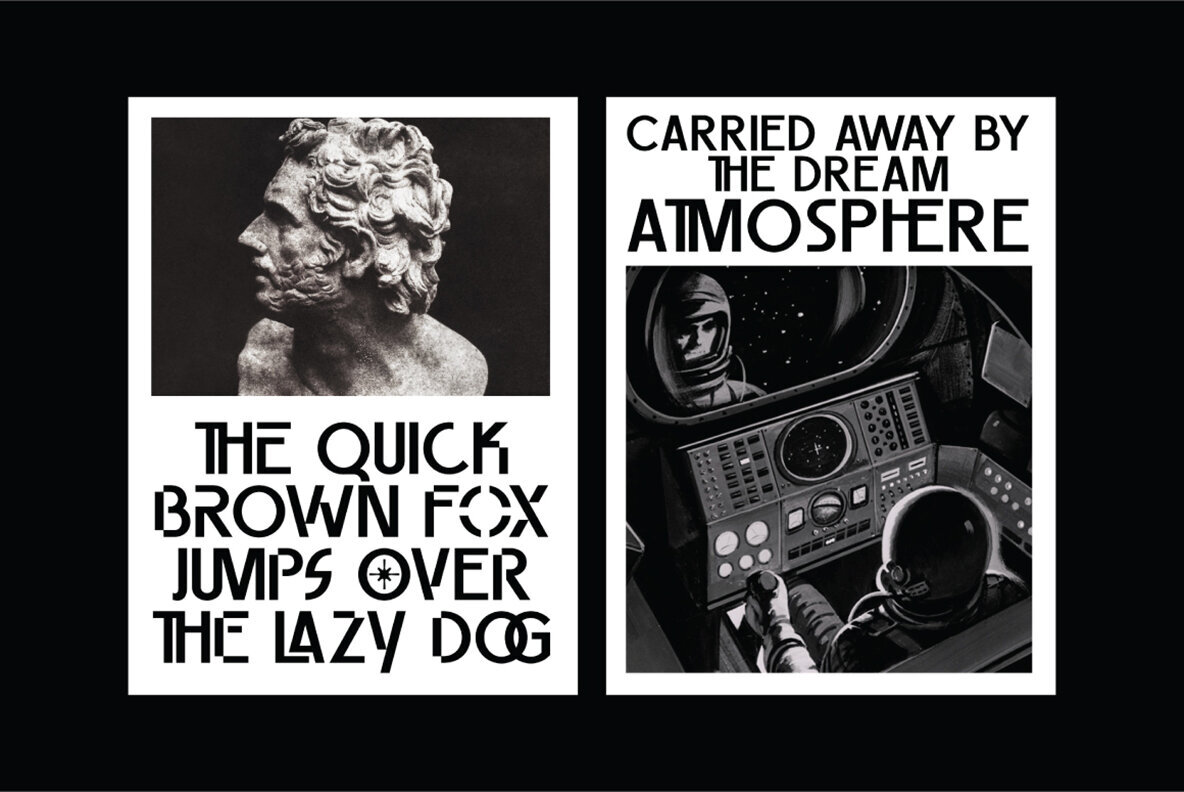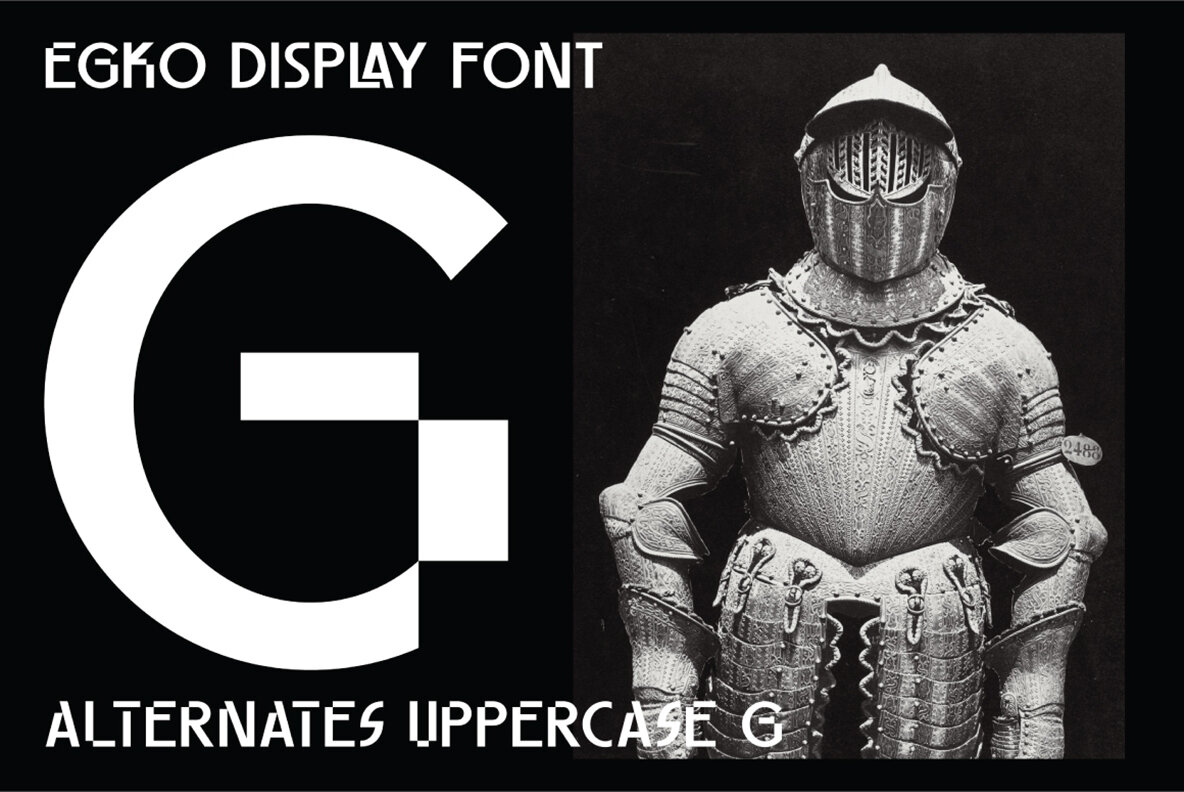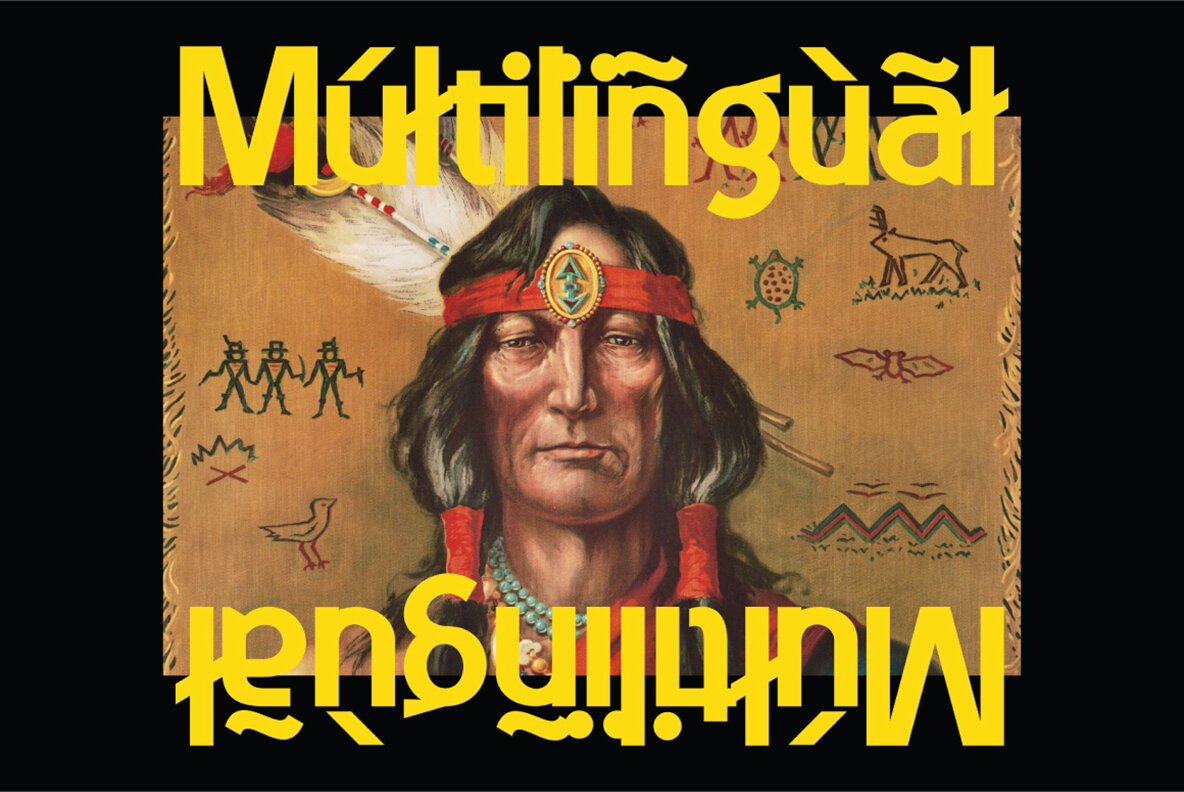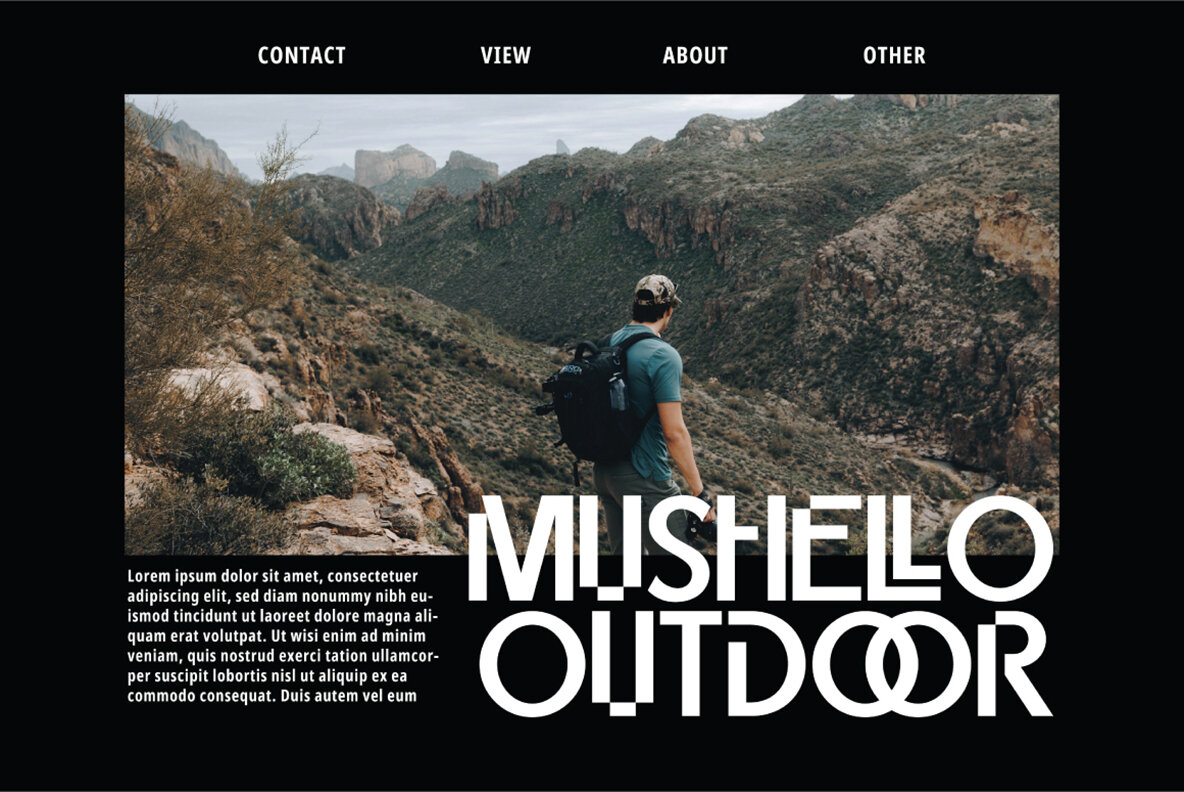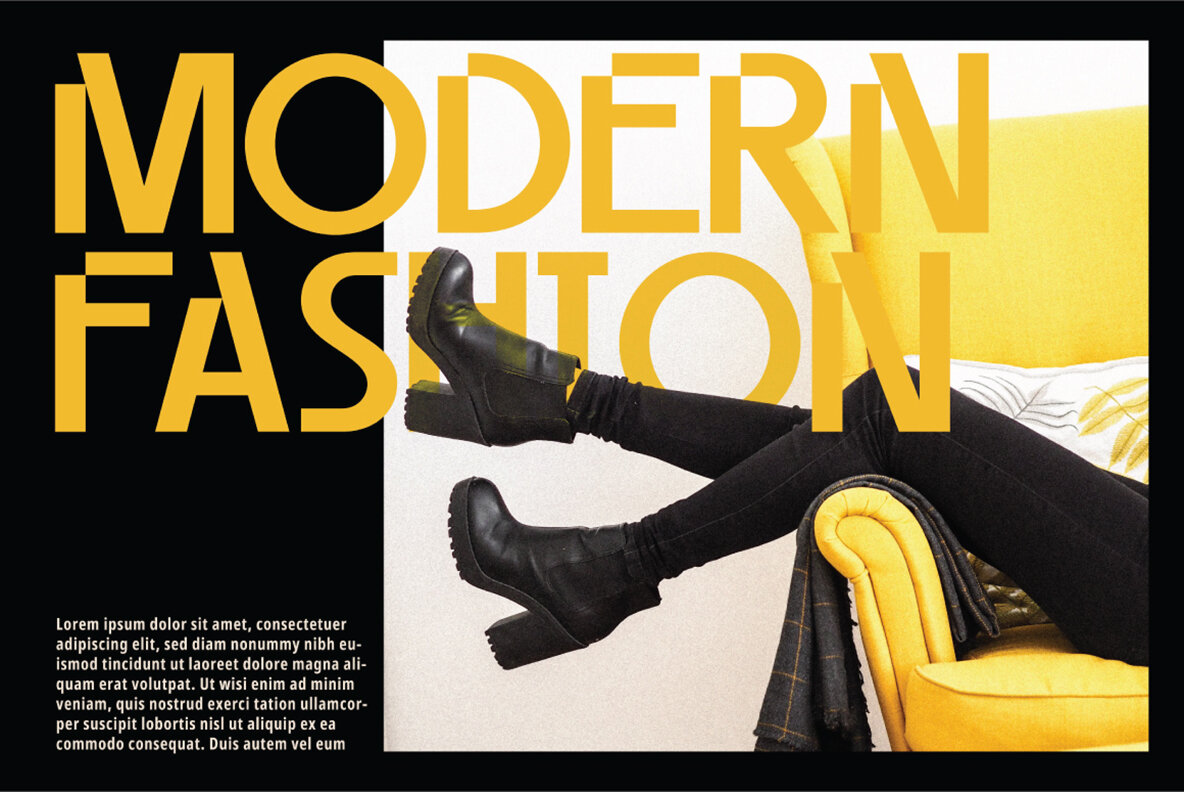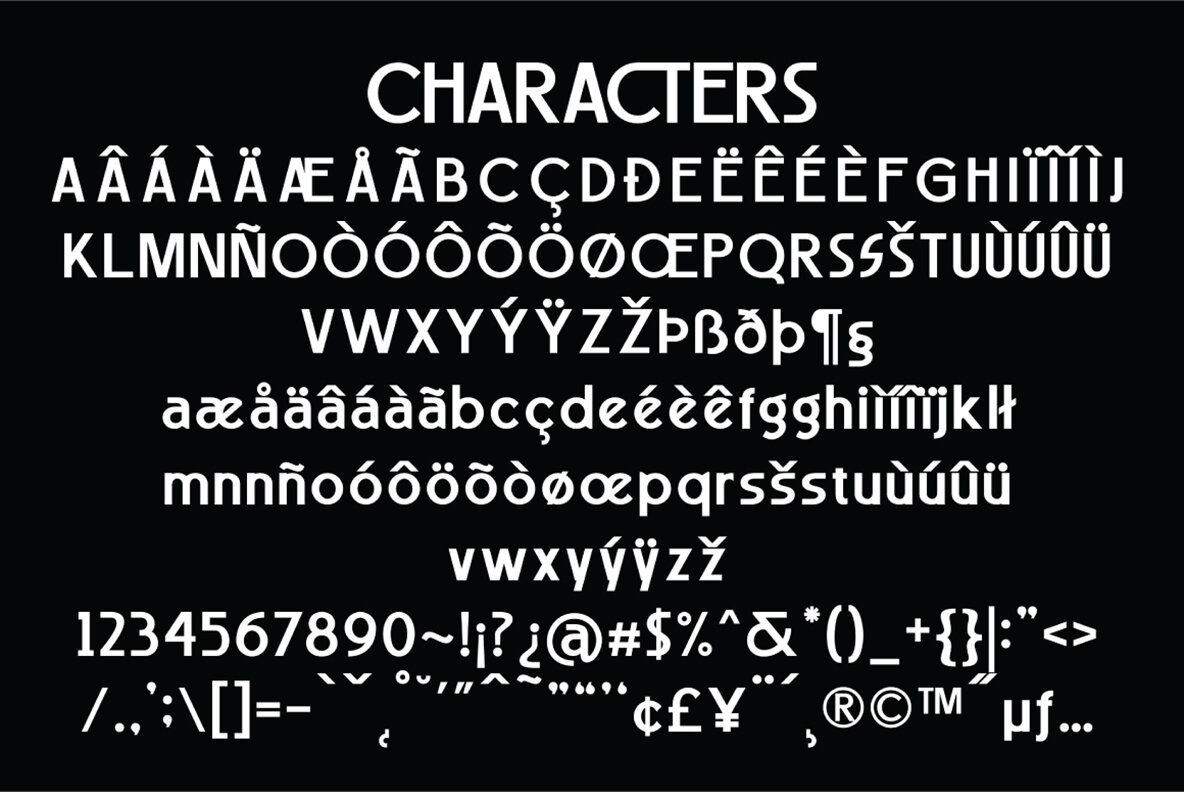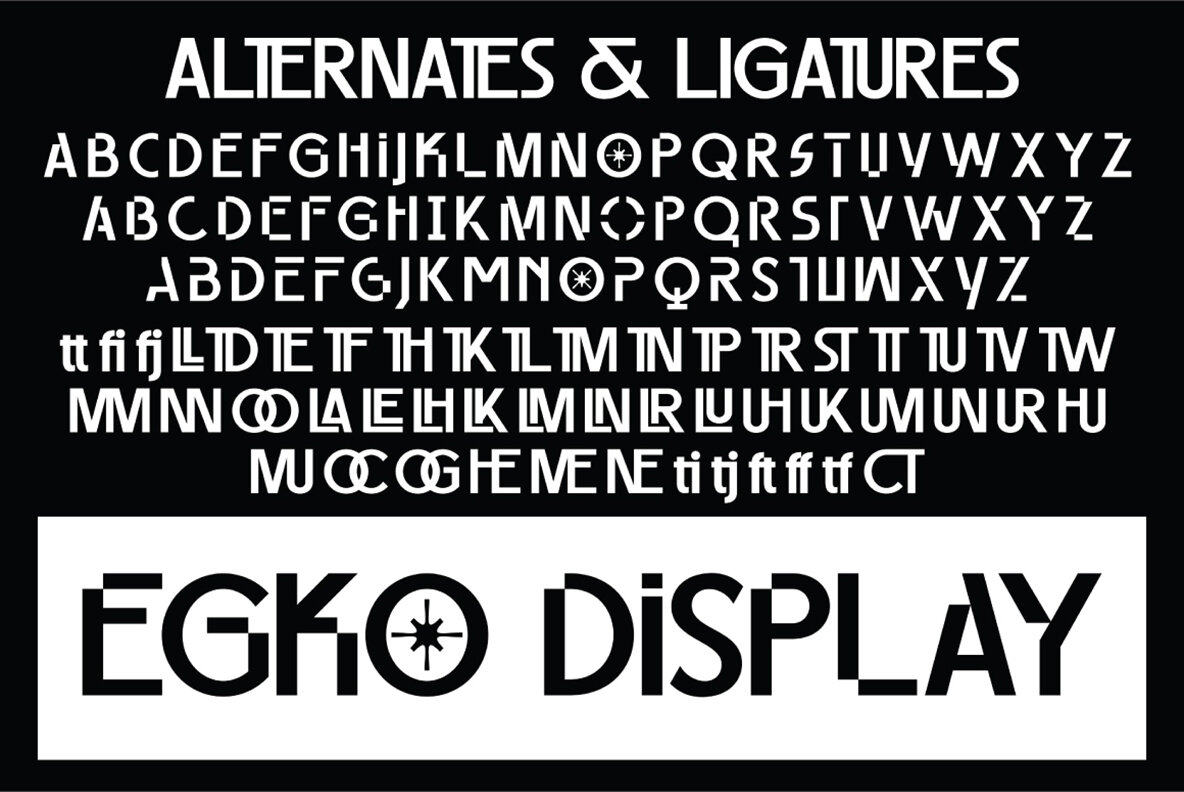
Egko Display Font: Characterful Typography for Various Applications
Egko is a typeface with personality, suitable for a wide range of applications from logos and badges to packaging, headlines, and posters.
• Stylistic Alternates – Provides diverse stylistic variations.
• Stylistic Sets – Offers organized pre-defined alternatives.
• Ligature Options – Enhances the connection between characters.